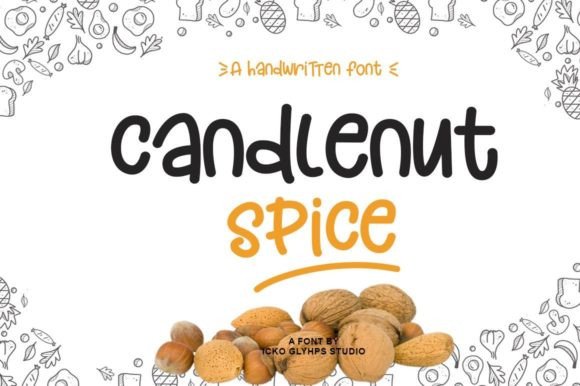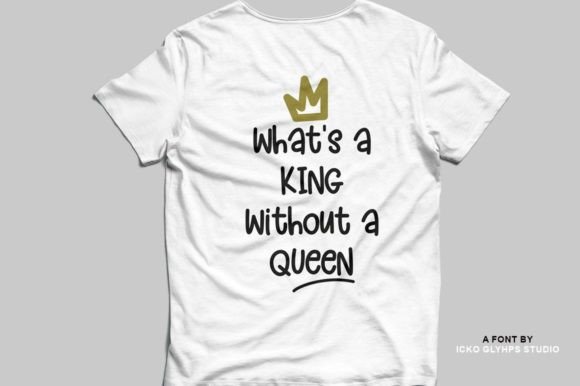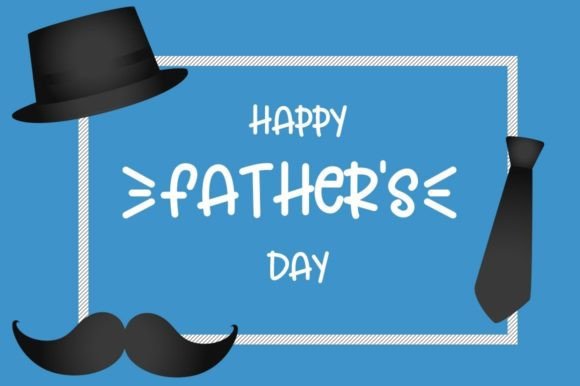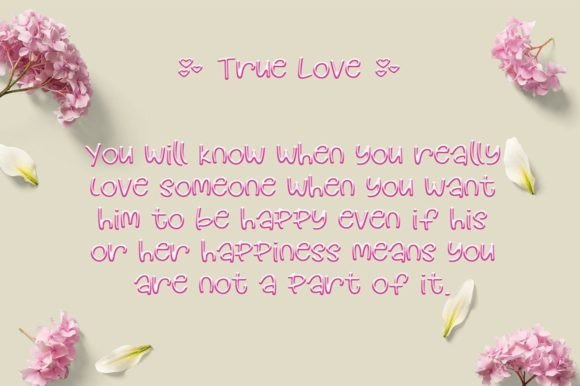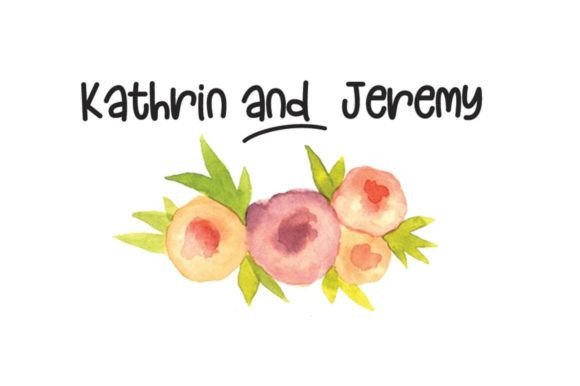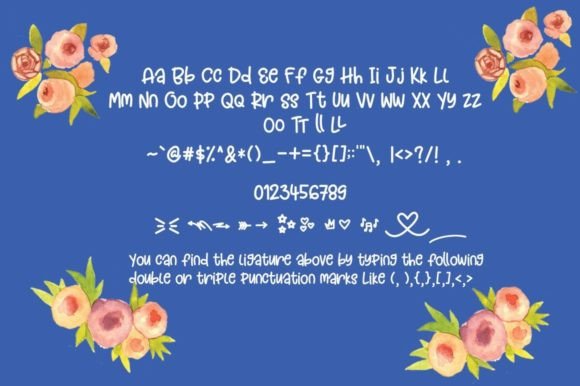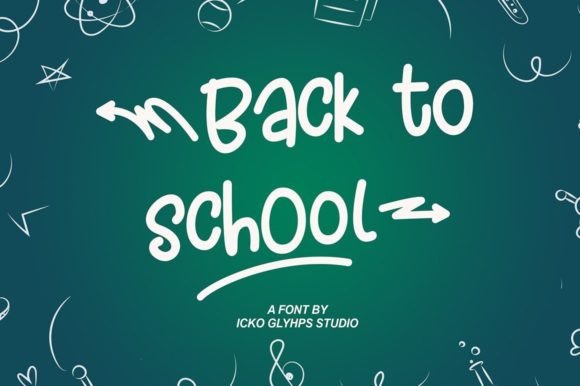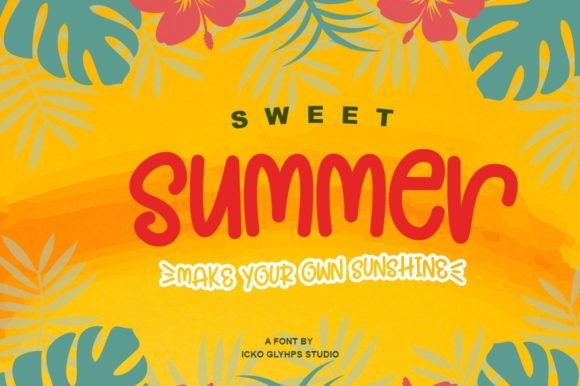
Candlenut Spice Font
About Candlenut Spice Font
Introducing “Candlenut Spice,” a cute handwritten font featuring fun ligatures, smooth characters, and a mighty appearance. This font is crafted to add a delightful touch to your favorite projects, offering a perfect blend of playfulness and versatility. Whether you’re working on headlines, greeting cards, or any other creative endeavor, Candlenut Spice promises to infuse your project with a romantic feel and a charming aesthetic.
The cute and handwritten style of Candlenut Spice brings a sense of warmth and friendliness to your designs. The smooth characters contribute to the font’s overall fluid and approachable appearance, making it suitable for a variety of applications.
The inclusion of fun ligatures adds an extra layer of creativity to the font. These ligatures enhance the visual appeal and provide options for unique and playful combinations, allowing you to experiment and customize the font according to your creative vision.
Candlenut Spice’s mighty appearance makes it stand out, ensuring that it makes a bold statement in your headlines or other prominent text elements. This feature adds a touch of confidence and impact to your designs.
The versatility of Candlenut Spice makes it suitable for a wide range of uses, from headlines to greeting cards. Its adaptable script style ensures that it can seamlessly integrate into different design contexts, adding a romantic and charming feel to each application.
In summary, Candlenut Spice is more than just a font; it’s a creative companion that brings cuteness, romance, and versatility to your projects. Whether applied to headlines or greeting cards, this handwritten font is designed to make a mighty impact with its charming and playful aesthetic. Embrace the delightful character of Candlenut Spice as you infuse your designs with warmth and creativity.